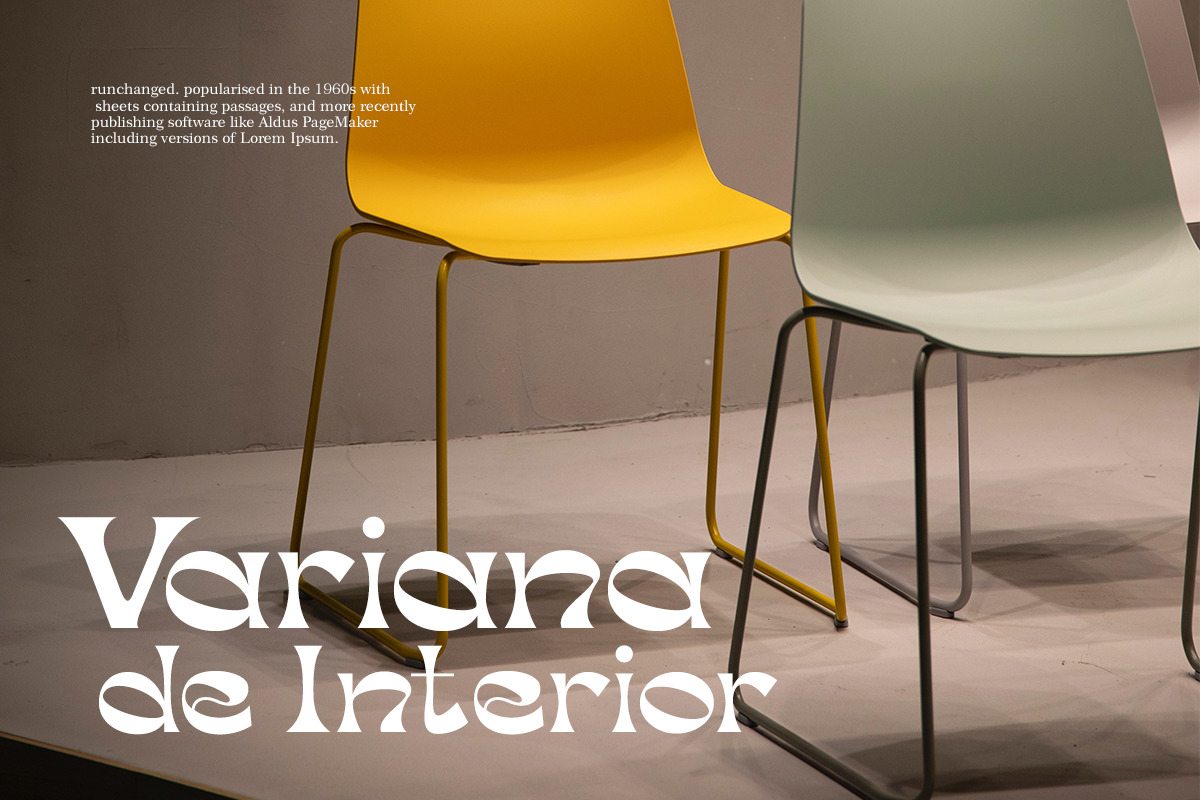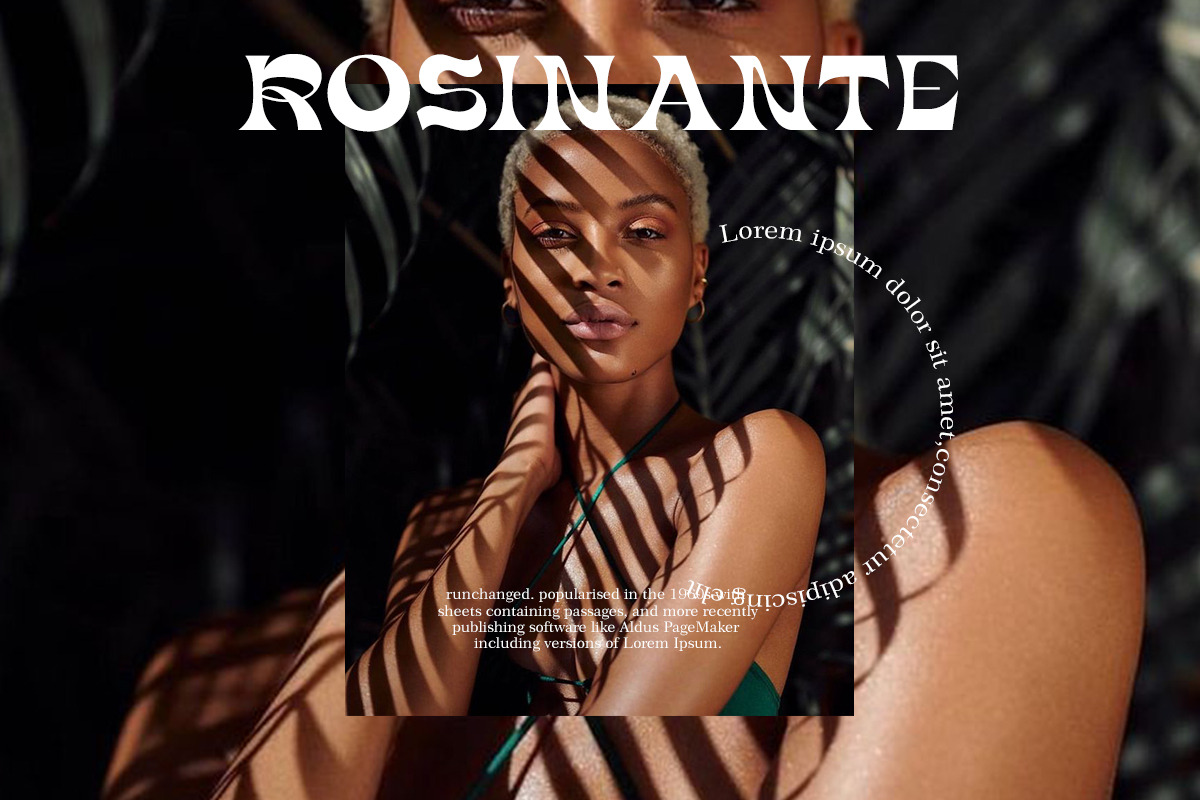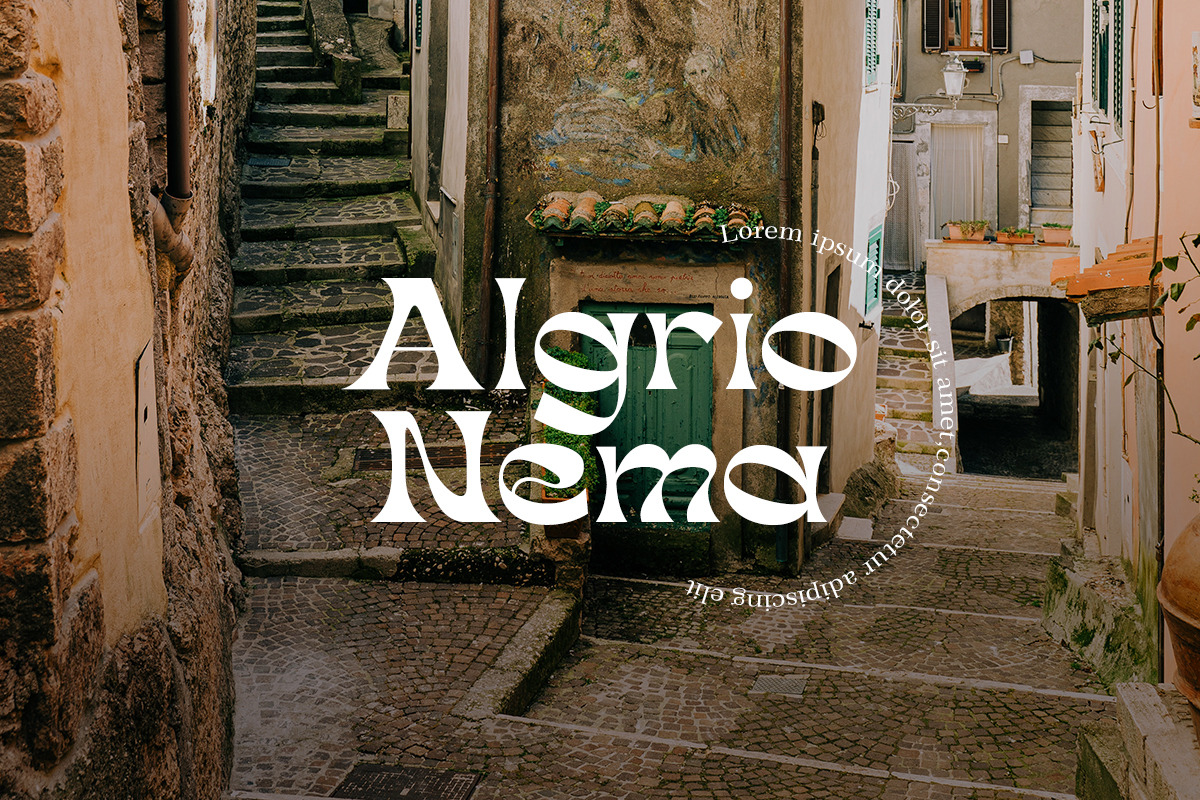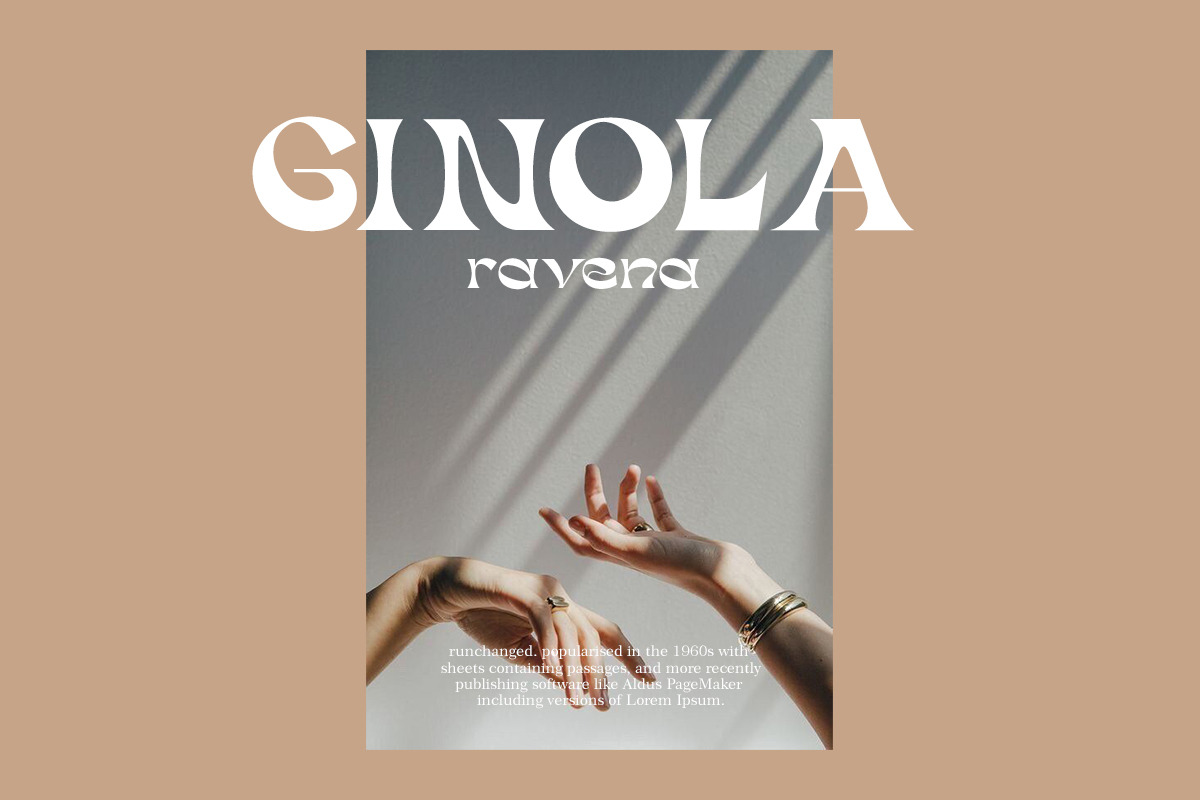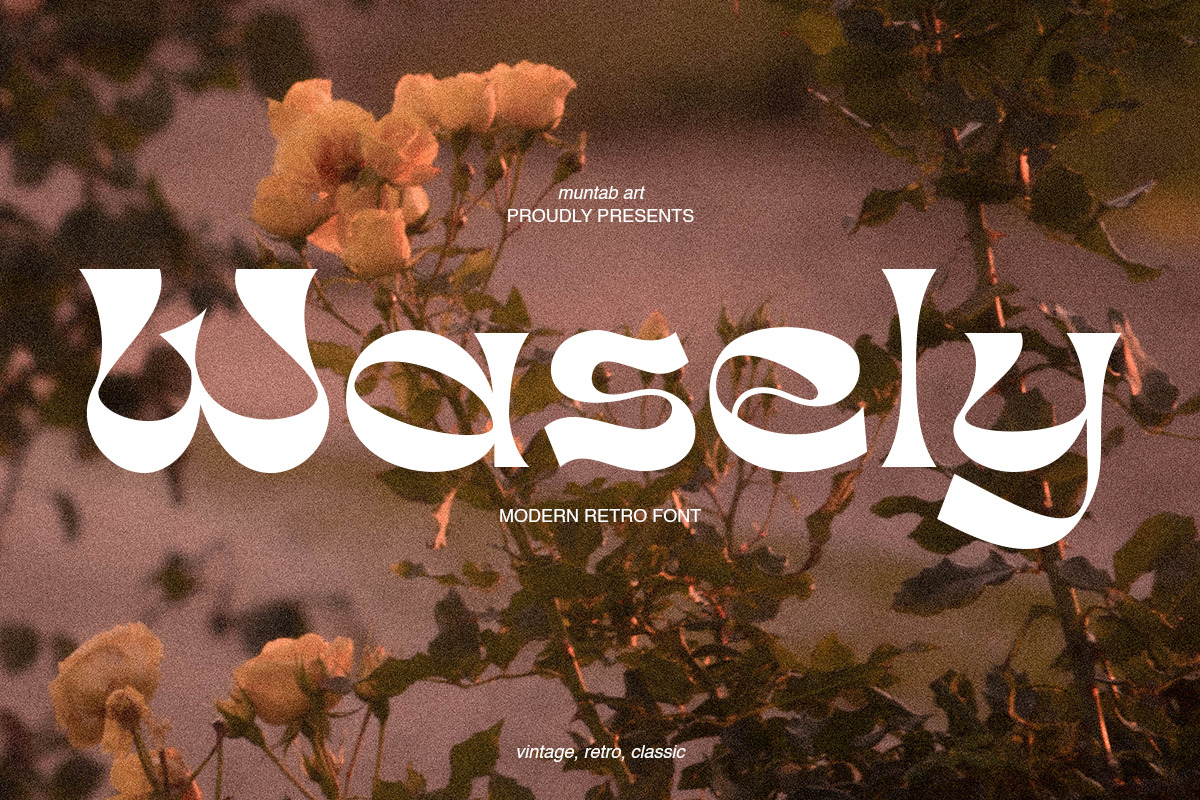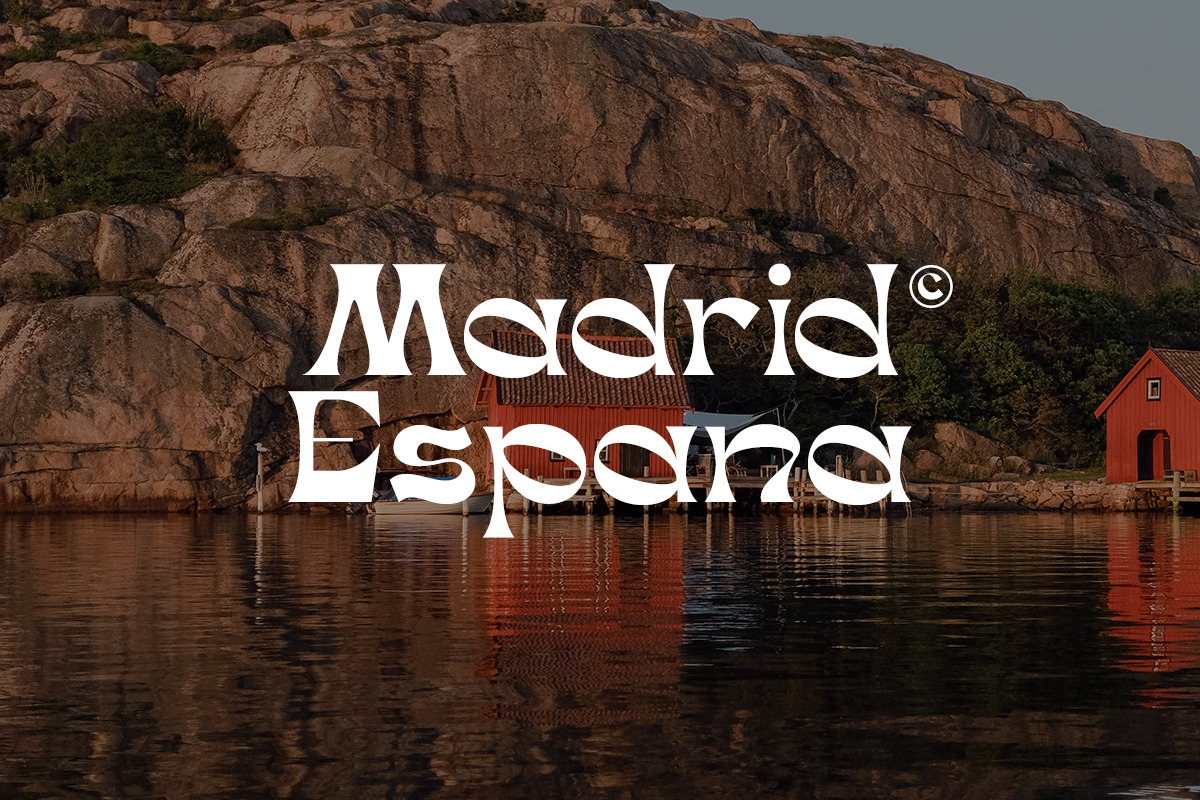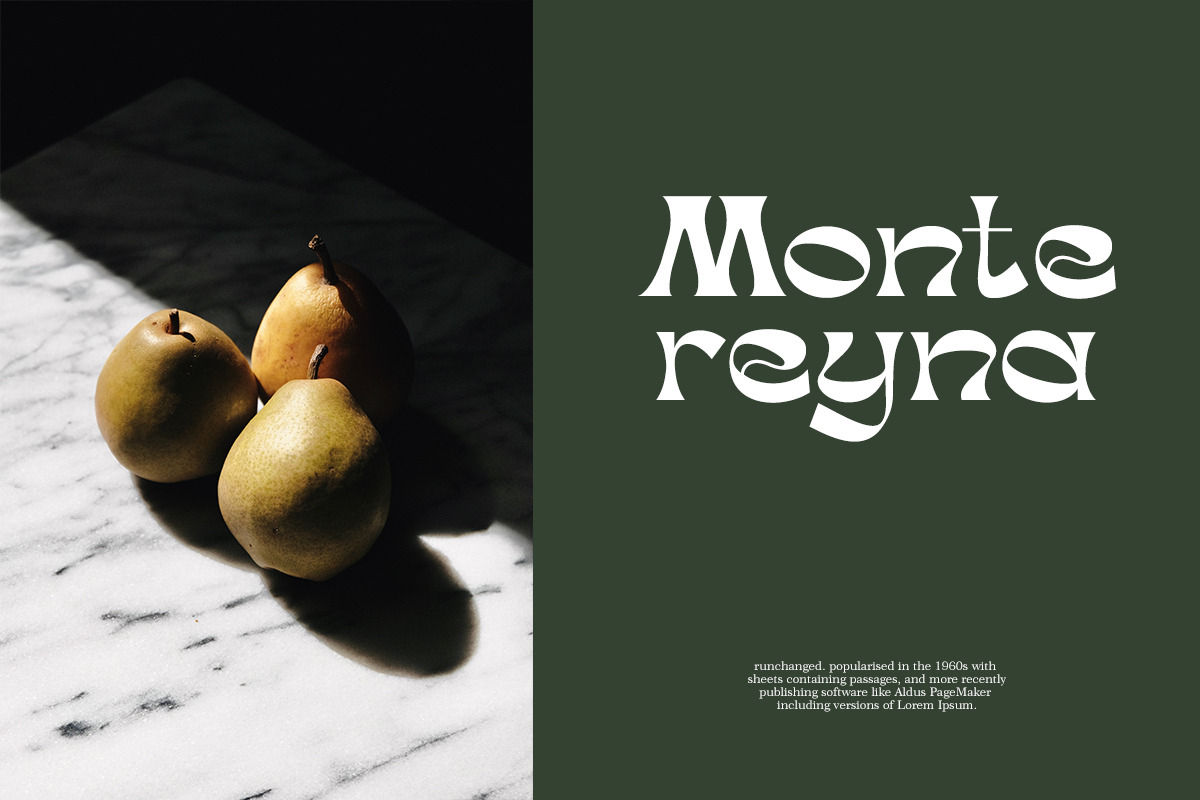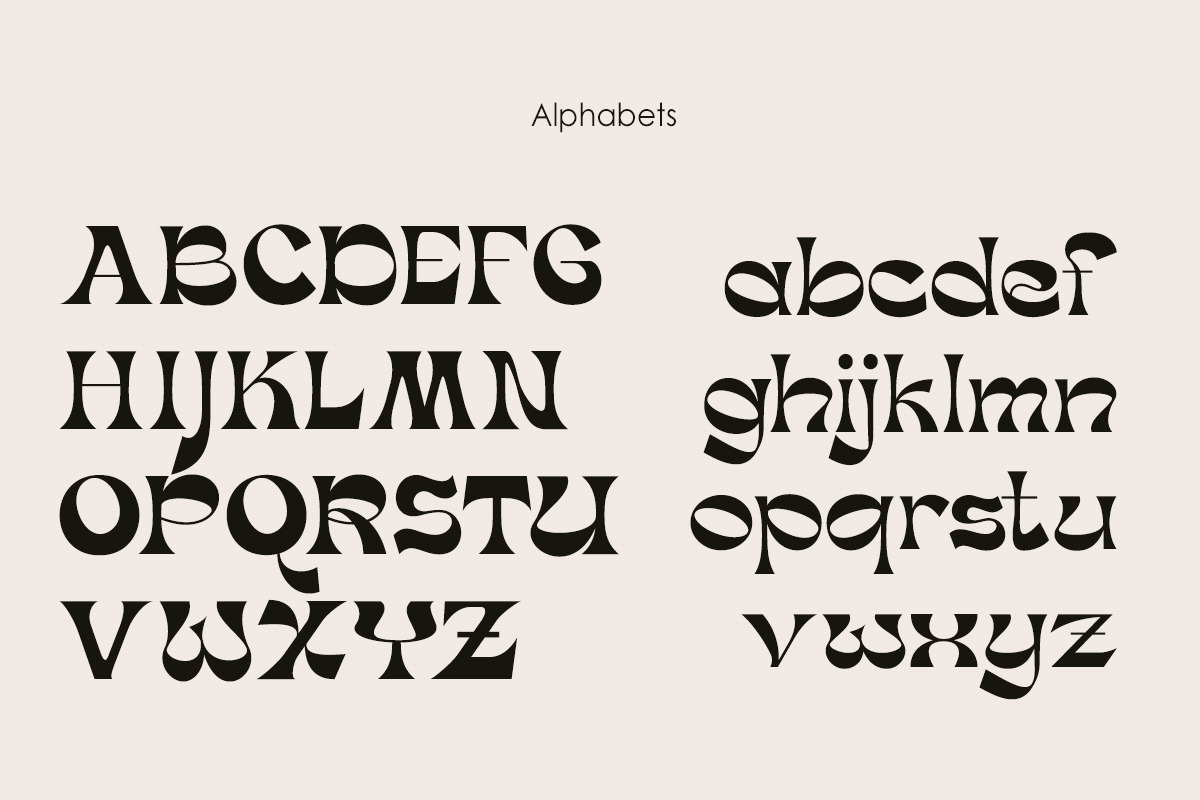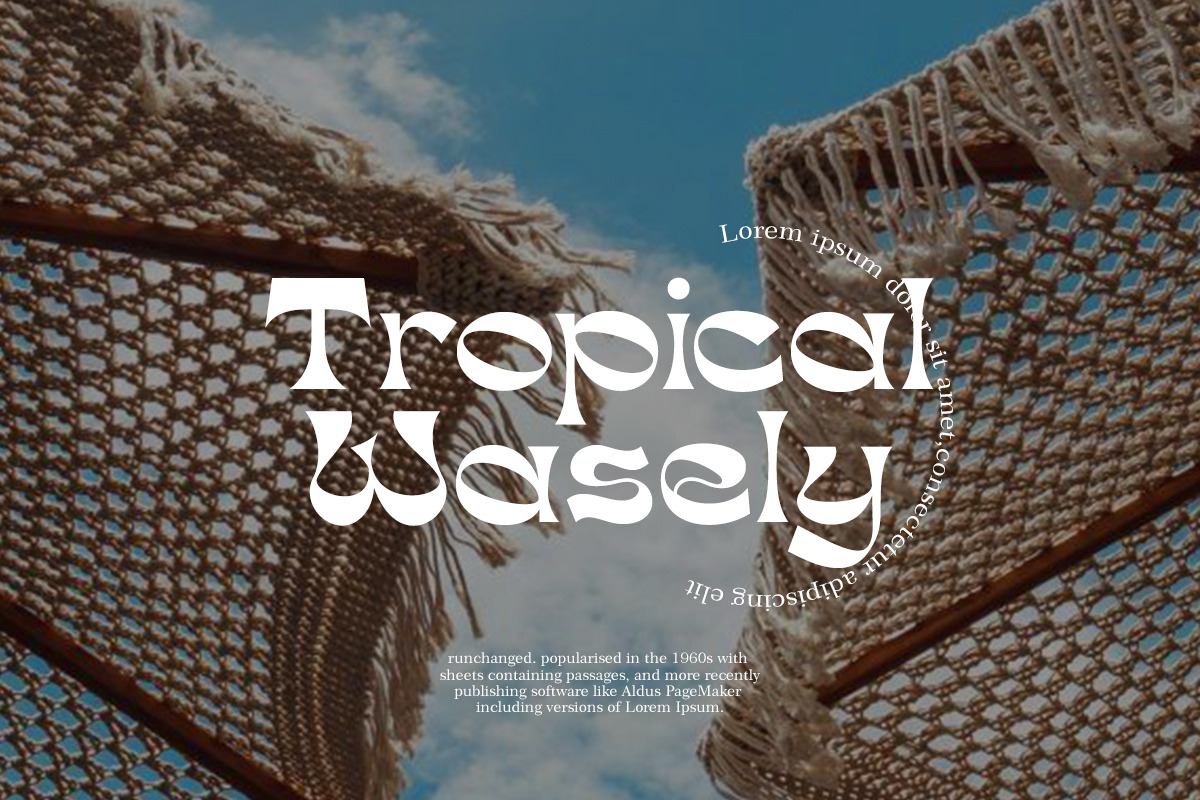
Wasely Modern Classic Font
Wasely fonts includes uppercase letters, numerals, a large range of punctuation. Serif font with modern classic reverse contrast style. Created for poster, web design, branding, illustrations, badges and some other works.